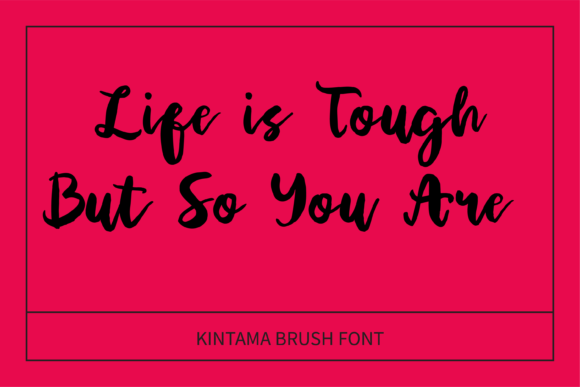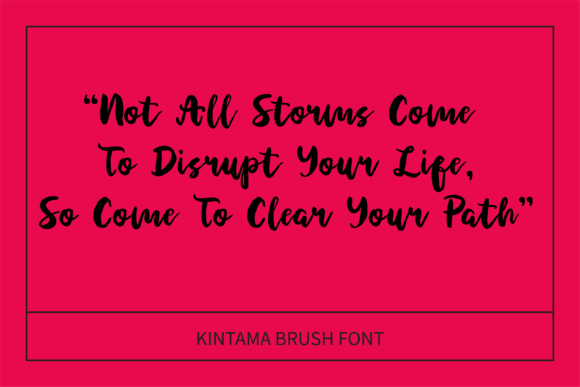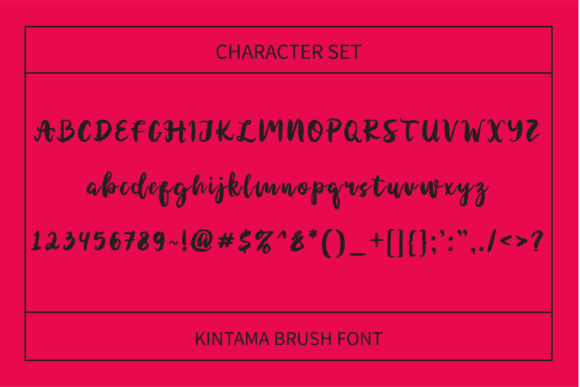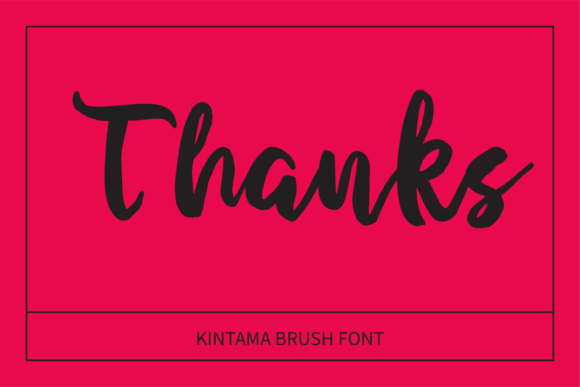
The Perfect Brush Stroke: Unveiling the Kintama Font
Have you ever been in the midst of a creative project, struggling to find the perfect font to bring your vision to life? You browse through countless options, but nothing seems to capture the essence of your design. That’s when you stumble upon a font that makes your heart skip a beat – a font that screams “handmade” and “unique.” For designers seeking that special something, the Kintama Font is a game-changer.
This handcrafted brush font boasts uneven lines, giving it a distinct, human touch that’s perfect for projects requiring a handmade impression. Whether you’re designing a logo, magazine title, greeting card, or poster, Kintama Font’s thick, characteristic strokes will elevate your work to the next level. With Kintama Font, you’ll be able to infuse your designs with a personal, artisanal feel that’s hard to find in mass-produced fonts.
Kintama Font Key Features
- Unique Characteristics: Kintama Font features a unique blend of Japanese and Western typography, resulting in a distinctive and elegant aesthetic.
Kintama Font Review
I recently had the chance to work with the Kintama Font, and I must say it’s an interesting choice for designers. ✨ Here are some things that stood out to me:
- Unique Design: Kintama Font has a distinctive, hand-drawn look that’s perfect for adding a touch of personality to your designs.
- OpenType Features: The font supports OpenType features, which allows for advanced typography capabilities and more precise control over font behavior.
- Wide Character Set: Kintama Font includes a wide range of characters, including Cyrillic and Greek scripts, making it a versatile option for global design projects.
- Limited Font Weight Options: The font only comes in two weights, which may limit its versatility for certain design applications.
- No Italic Styles: The font does not include italic styles, which may be a concern for designers who rely heavily on italic text.
- Some Characters May Require Manual Adjustment: While the font has a wide character set, some characters may require manual adjustment to achieve the desired look.
Overall, I think Kintama Font is a solid choice for designers who want to add a unique touch to their projects. While it may not be the most comprehensive font family, its distinctive design and advanced typography capabilities make it a great option for the right projects.
The Kintama font is suitable for:
- Editorial and publishing designs
- Formal events and announcements
Remember to use the Kintama font in context with your design to achieve the desired effect.